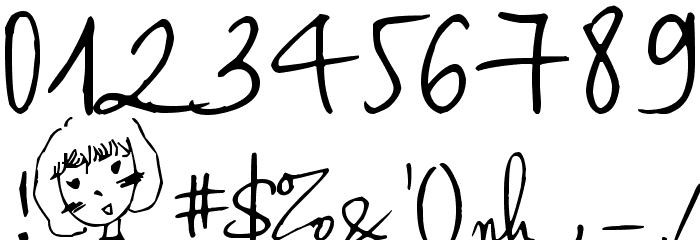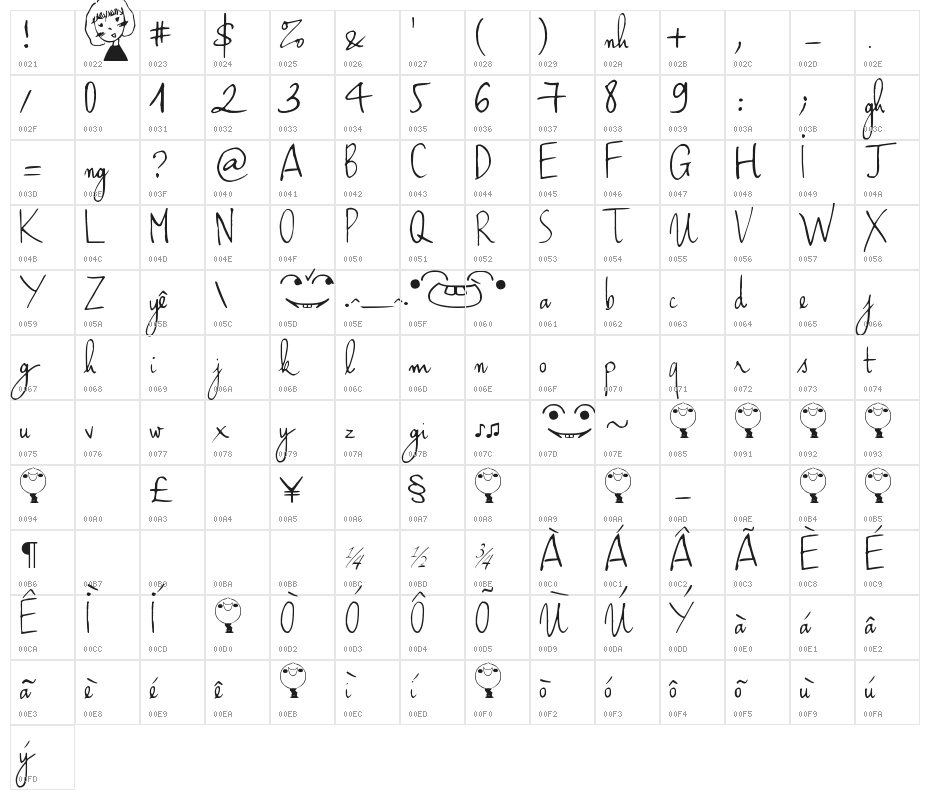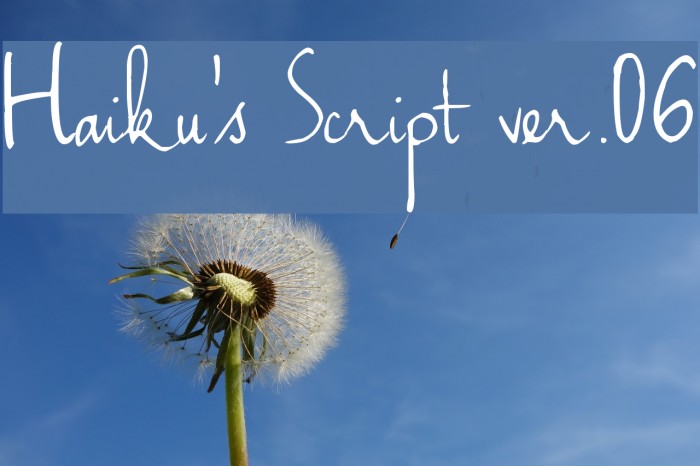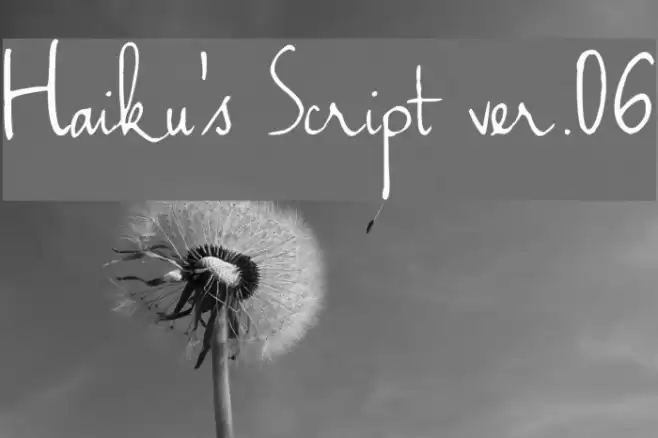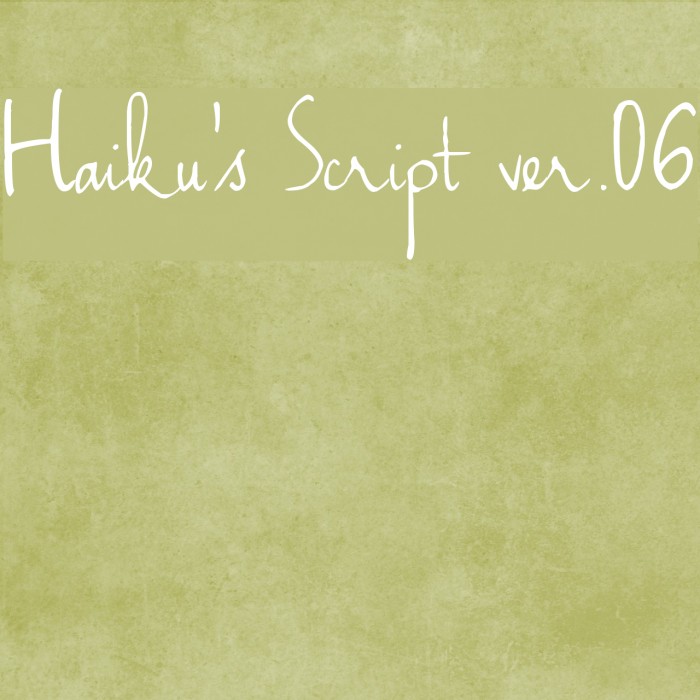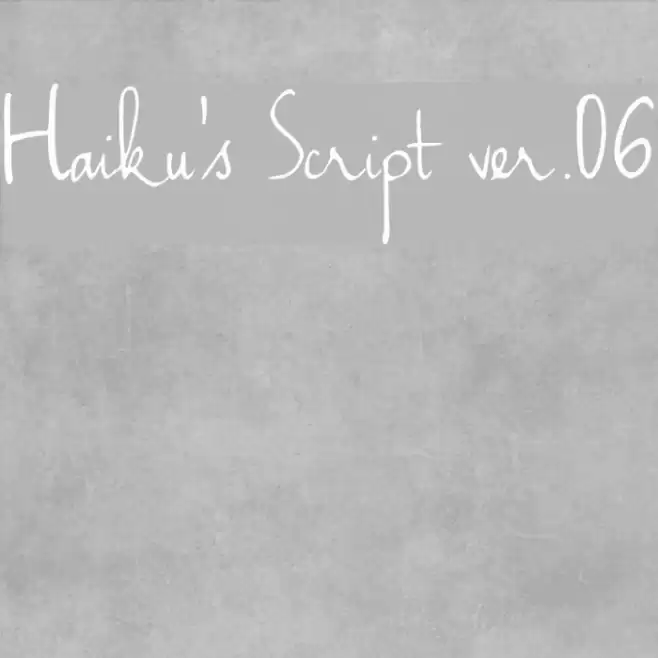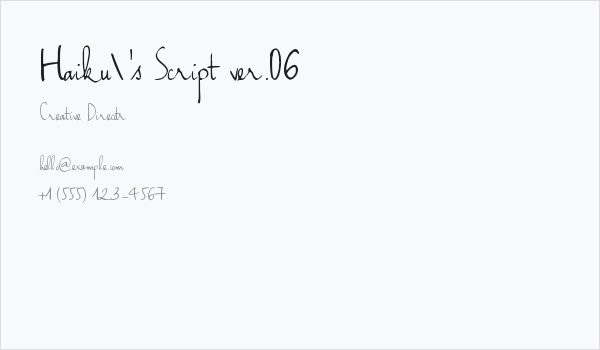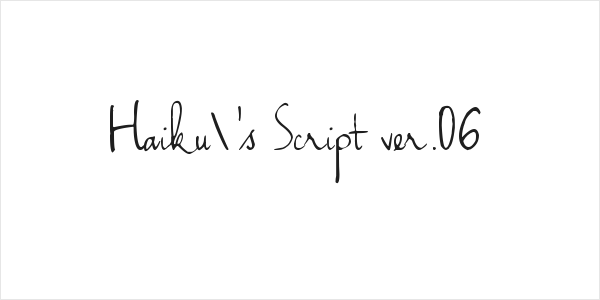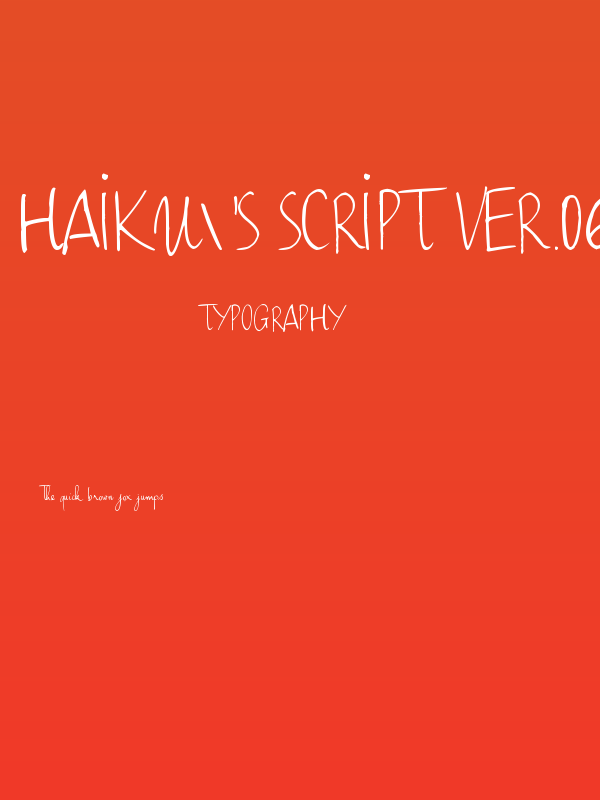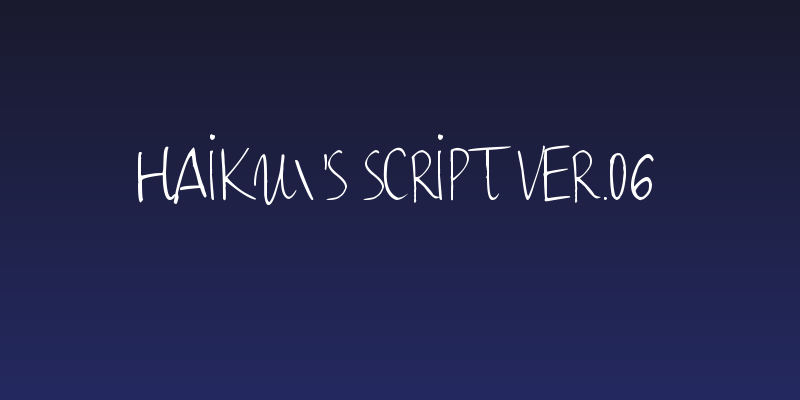
This font features a lively and expressive handwritten style, characterized by its fluid and dynamic strokes. The uppercase letters are bold and slightly irregular, giving a sense of spontaneity and creativity. The lowercase letters are more connected, resembling a cursive script with varying stroke widths that add to its charm. Numbers are bold and clear, maintaining the playful essence of the font. Special characters are uniquely styled, complementing the overall aesthetic. This font exudes a personal touch, making it ideal for projects that require a human element.
| Use Case | Logos, Invitations, Personal Branding |
| Proposed Projects | Ideal for greeting cards, invitations, personal branding, and creative projects that require a human touch. |